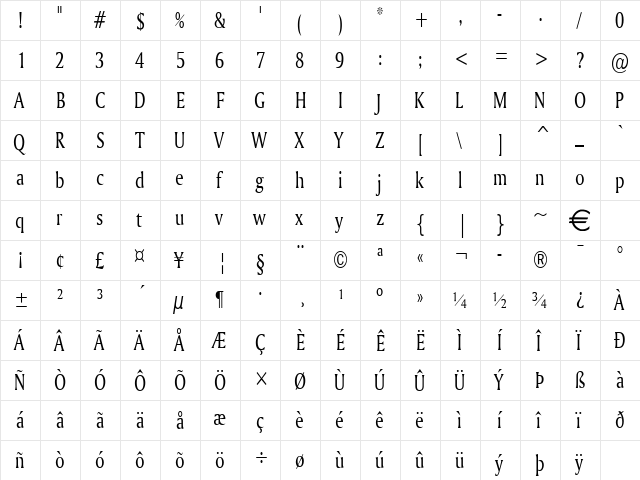
AmerettoThin Normal
Design Context for AmerettoThin Typeface
AmerettoThin offers clean, dependable letterforms without strong stylistic allegiance, making it a practical choice for designers who need flexibility. The delicate stroke weight brings airiness and refinement to layouts.